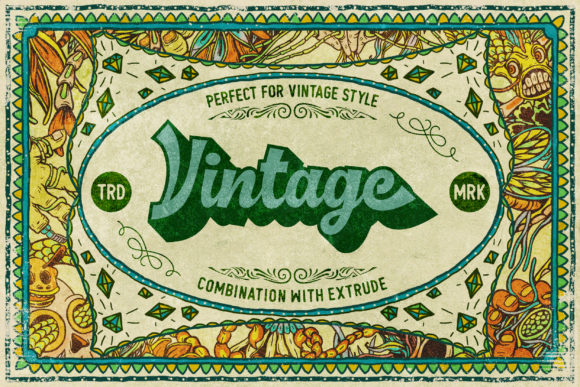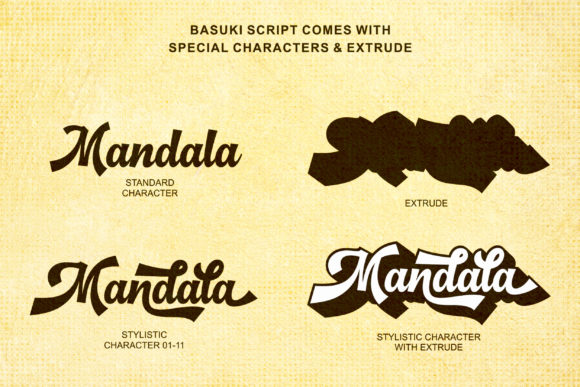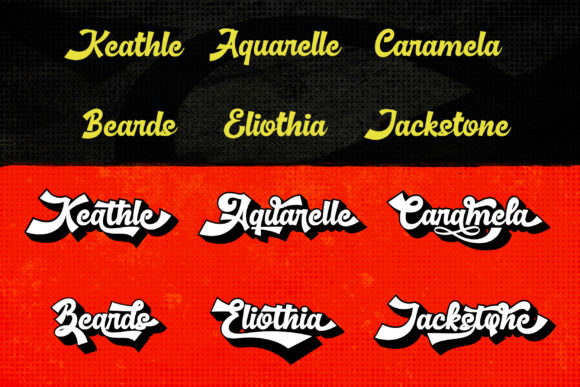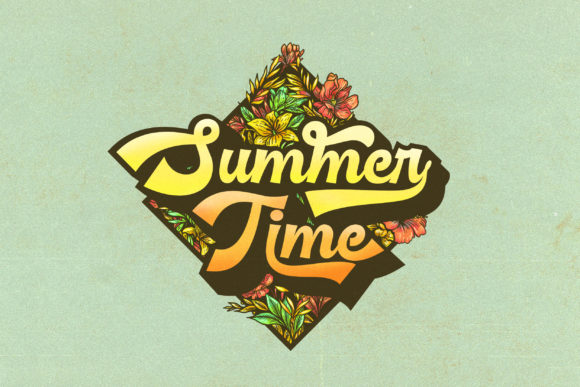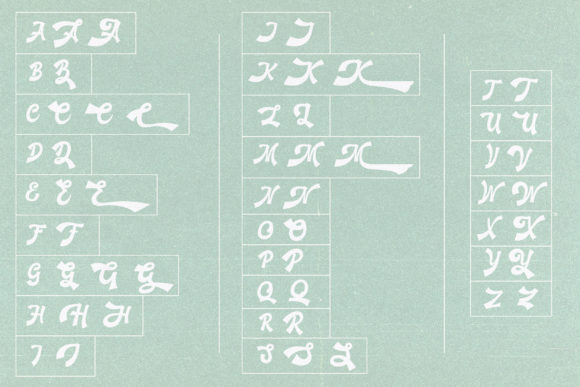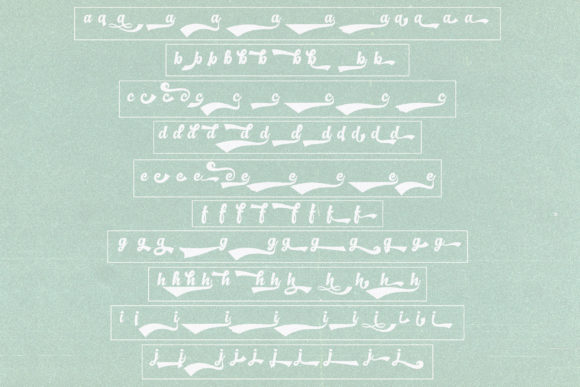
Introducing Basuki Font: The Ultimate Choice for Bold and Compelling Designs
Are you tired of using the same old fonts for your designs? Look no further! Basuki Font is here to revolutionize the way you create. This fun and cool handwritten font with a bold feel is perfect for advertising projects, and its powerful letters will convey any message in a strong and compelling way.
What Makes Basuki Font Stand Out?
Basuki Font is not just another font; it’s an experience. Its unique and bold style makes it perfect for designers and crafters who want to add a touch of personality to their work. Whether you’re creating a poster, a brochure, or a social media graphic, Basuki Font is sure to grab attention and leave a lasting impression.
Key Features of Basuki Font
- Bold and Powerful Letters: Basuki Font’s letters are designed to make a statement. Their bold and powerful style ensures that your message is conveyed in a strong and compelling way.
- Fun and Cool Handwritten Style: The font’s handwritten style adds a touch of personality to your designs, making them more relatable and engaging.
- Perfect for Advertising Projects: Basuki Font is specifically designed for advertising projects, making it the perfect choice for designers who want to create eye-catching and effective designs.
- Easy to Read: Despite its bold style, Basuki Font is easy to read, ensuring that your message is conveyed clearly and effectively.
How to Use Basuki Font in Your Designs
Using Basuki Font in your designs is easy. Here are a few tips to get you started:
- Pair it with Other Fonts: Basuki Font pairs well with other fonts, making it easy to create a unique and visually appealing design.
- Use it for Headings and Titles: Basuki Font is perfect for headings and titles, where its bold style can make a big impact.
- Experiment with Different Colors: Basuki Font looks great in a variety of colors, so don’t be afraid to experiment and find the perfect color for your design.
Why Designers and Crafters Love Basuki Font
Basuki Font has quickly become a favorite among designers and crafters, and for good reason. Here are a few reasons why:
- Unique Style: Basuki Font’s unique style sets it apart from other fonts, making it a great choice for designers who want to create something truly original.
- Easy to Use: Basuki Font is easy to use, even for those who are new to design.
- Versatile: Basuki Font can be used in a variety of designs, from posters and brochures to social media graphics and more.
In conclusion, Basuki Font is a game-changer for designers and crafters. Its bold and powerful letters, fun and cool handwritten style, and ease of use make it the perfect choice for advertising projects. Whether you’re a seasoned designer or just starting out, Basuki Font is sure to take your designs to the next level.